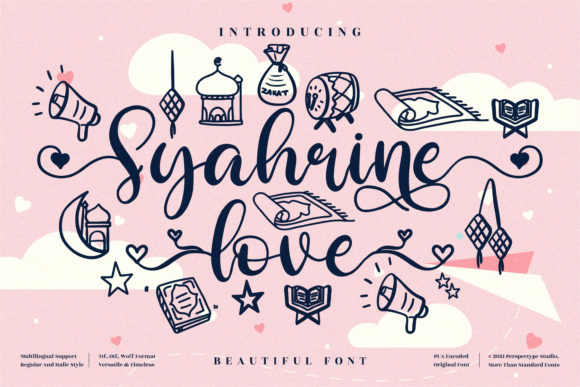
Prepare to captivate your audience with the enchanting Syahrine Love Font, a masterpiece crafted to ignite passion and evoke elegance in your designs!
Like a love letter penned with the utmost care, this script font flows with an alluring rhythm, its characters dancing gracefully across the digital canvas. Each stroke exudes romance and tenderness, leaving an irresistible impression on all who behold it.
Whether you seek to adorn your wedding invitations with a touch of timeless charm, or desire to craft social media posts that radiate warmth and emotion, Syahrine Love Font possesses the transformative power to elevate your creations to new heights of beauty.
Step into a world where signatures become works of art, where every word carries the weight of a thousand whispered secrets. With Syahrine Love Font, your designs will blossom into a symphony of sophistication and allure.
With its PUA encoding, this font grants you effortless access to an enchanting array of glyphs and ligatures. Unleash your creativity and let your imagination soar as you weave tales of love, passion, and dreams through the power of this captivating typeface.
Embrace the allure of Syahrine Love Font, and let your designs blossom into a testament of your passion and artistic flair.